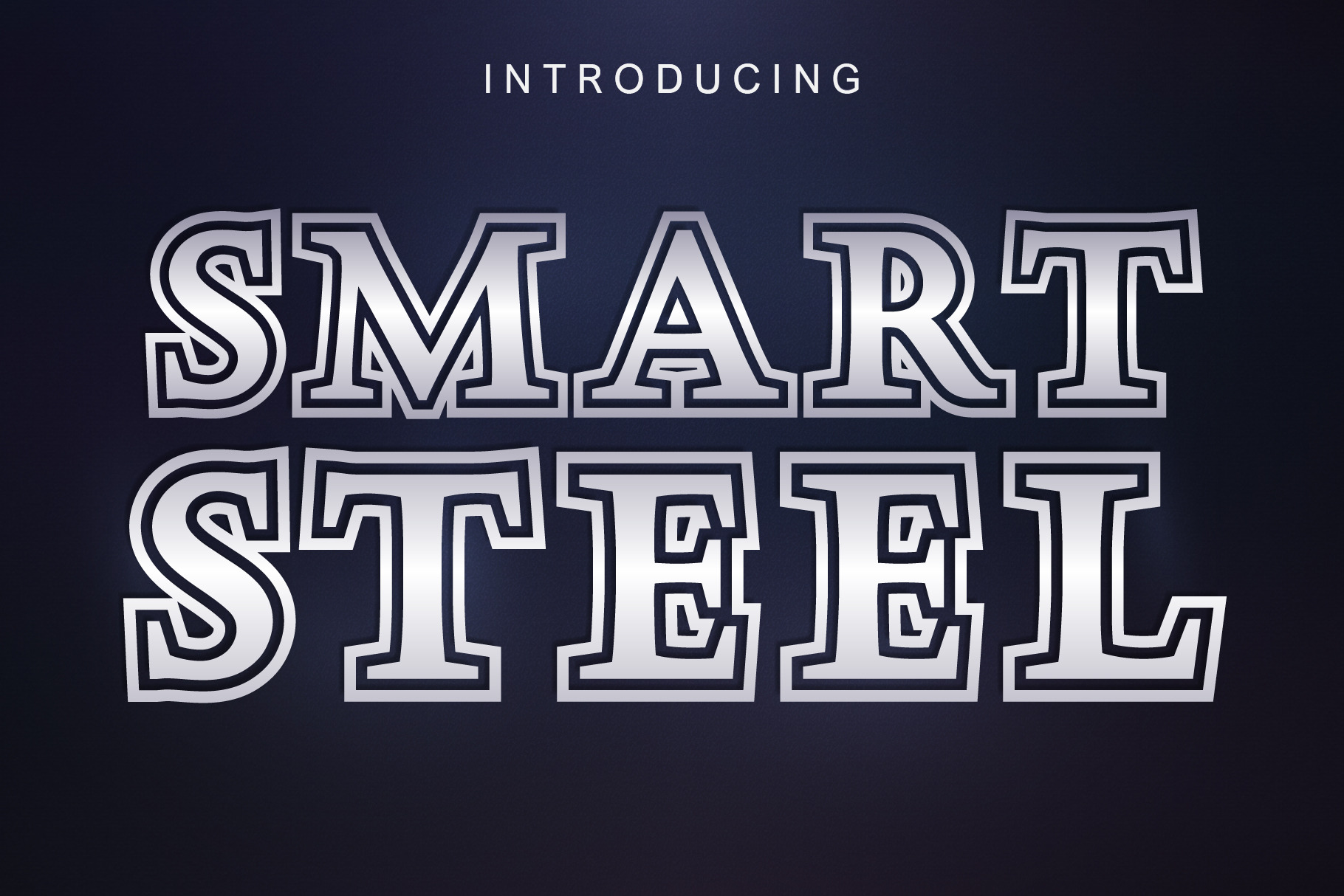
Smart Steel Fonts
Smart Steel Fonts is a strong and incredibly cool, display font. No matter the topic, publications, logo, business cards, or printed on t-shirts, this font will look outstanding. this font will be an incredible asset to your fonts’ library, as it has the potential to elevate any creation.